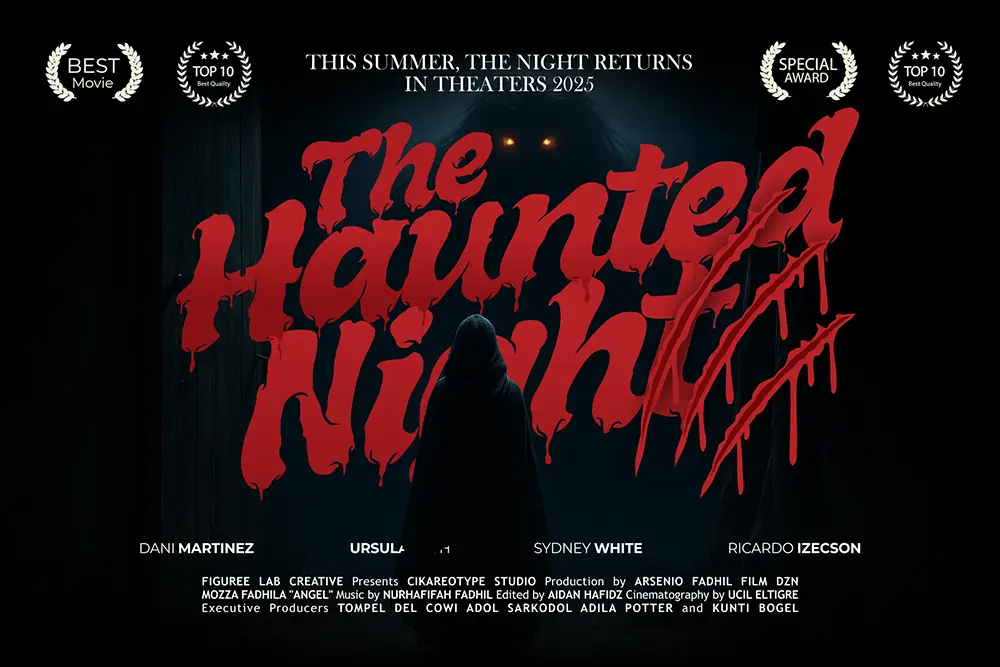
Every October, designers, freelancers, and brand owners feel the same chill: which Horror Movie Fonts will make my Halloween project scream this year? Posters for a horror film, flyers for haunted houses, thumbnails for YouTube jump-scare edits—each of them can die a slow death if the typography looks too cute, too soft, or worse, too boring.
The truth? Typography is the horror movie. The right Horror Movie Fonts drag the viewer into a dark alley before a single actor steps on screen. The wrong one kills the suspense before it starts. That’s why for Halloween 2025, picking fonts isn’t just a design choice—it’s survival.
Look at any great horror classic—The Exorcist, Psycho, It Follows. Their posters live rent-free in your memory because of typography. Horror fonts create a promise: blood, dread, and adrenaline in just a headline.
And here’s the catch—Halloween projects aren’t only for Hollywood. Freelancers designing for small brands, Etsy shop owners making spooky T-shirts, or YouTubers launching a Halloween countdown all depend on fonts that sell fear fast. According to WebDesignerDepot, typography is one of the strongest tools for creating emotional response in design. Fear is no exception.
Now let’s walk into the shadows and open the crypt. Here are ten fonts from Figuree Studio that will dominate Halloween 2025. Each one drips with style, story, and enough creep factor to wake the dead.
Imagine a jagged title crawling across your poster like broken glass. Cursed Night is sharp, aggressive, and cinematic—perfect for haunted house flyers, slasher party invites, or that indie horror short you’ve been planning.
As the name suggests, it oozes terror. Its dripping layers scream “classic gore flick,” making it the go-to font for social media banners, YouTube thumbnails, and street posters.
Playful yet unsettling, Mister Pumpkins balances fun with fright. It’s the kind of font you’d see on kids’ trick-or-treat bags—but look closer, and there’s something too cheerful.
Think of green ooze sliding down a wall. Grims Acid makes typography feel alive, pulsating like a living organism. It’s ideal for horror gaming covers or neon Halloween club posters.
Clean, dark, and cinematic. Night Beats is the font equivalent of a sudden violin screech in a movie score. Use it for bold headlines, film titles, or spooky book covers.
Halloween doesn’t only live in old castles—it thrives on urban walls. Vuldra is a graffiti-style horror font that fits perfectly for edgy T-shirts, street posters, or rebellious event branding.
This typeface looks like it’s melting right off the page. Playful yet sinister, it’s a great choice for merchandise, party invites, or seasonal packaging.
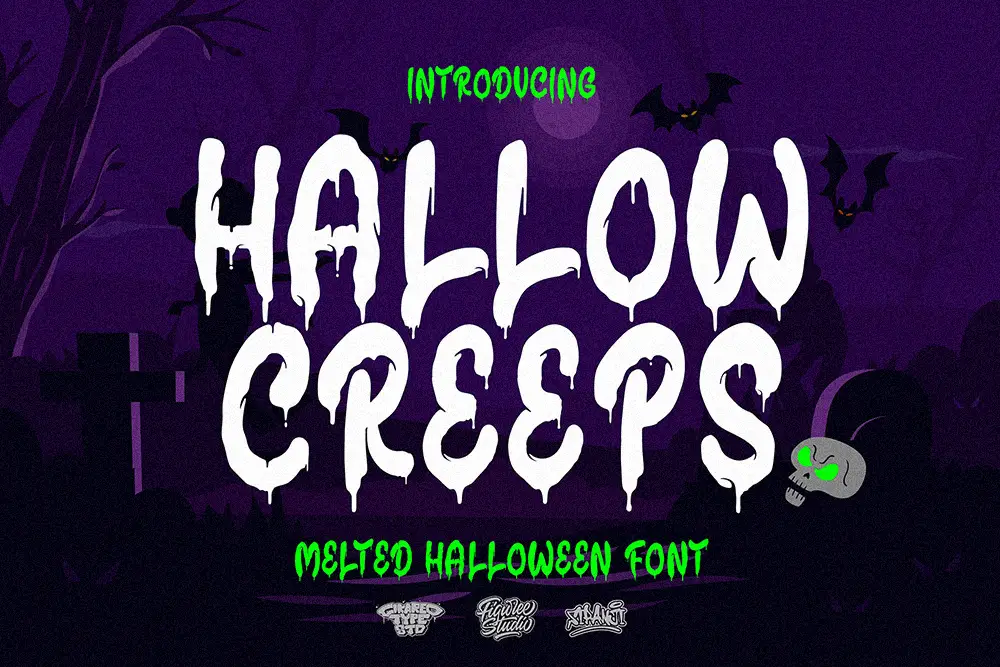
Imagine a ghost leaving trails of ink as it drags across your poster. Ghostly Whispe is raw, imperfect, and frighteningly human—amazing for Instagram stories or moody branding.
A callback to vintage horror sign painting, this one feels straight out of a ‘70s drive-in theater. It’s dripping with nostalgia and makes your project scream retro horror chic.
Sometimes the scariest things come in vintage style. Darkest Saturday feels timeless—like an old family portrait that hides too much. It’s perfect for eerie logos and print projects that need gravitas.
Now here’s the trick—scary fonts can easily go too far. Layer too many dripping effects, and you risk turning dread into parody. The secret is pairing. Use one bold horror headline and balance it with something calm, like Midnight Workers, a modern sans serif. This contrast keeps your design terrifying, not tacky.
And if budget is tight? Start with our free font collection. Sometimes, one haunting font plus a clean backup is all you need.
After years of seeing Halloween projects flop or fly, here’s our lesson: the typeface isn’t just decoration—it’s narrative. A dripping font tells the story before the first word is read.
Stephen King once said: “People are more afraid of the things they cannot see.” Fonts give shape to the unseen. A whispery brush stroke, a jagged serif—these are visual hints of the monster off-screen. Use them wisely, and your audience won’t just look at your design—they’ll feel it.
Halloween is never just about costumes and candy—it’s about atmosphere. And in design, atmosphere is built with fonts. The best Horror Movie Fonts for Halloween 2025 will make your posters bleed, your banners scream, and your projects unforgettable.